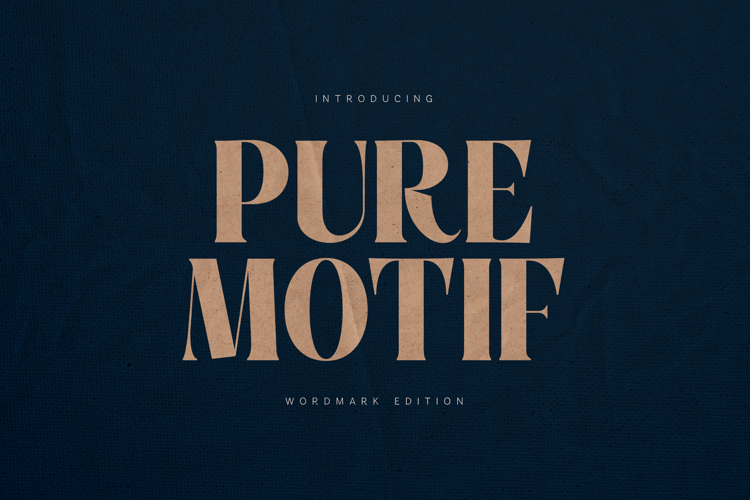
Pure Motif Wordmark Edition
Pure Motif is a refined serif typeface designed for powerful wordmarks, elevated branding, and timeless editorial compositions.
It blends classical proportions with contemporary sharpness — creating a voice that feels established, intentional, and unmistakably premium.
This is not decorative.
It is deliberate.
Design Character
Pure Motif carries:
• Strong vertical rhythm
• Confident serifs
• Sculpted terminals
• Elegant contrast
• Heritage undertones
• Luxury editorial presence
The uppercase is bold and commanding.
The lowercase adds refinement and balance.
Together, they create high-end branding potential.
Where It Excels
Luxury branding
Fashion houses
Perfume labels
Architecture studios
Creative agencies
High-end packaging
Editorial covers
Wine & spirits branding
Boutique hotels
Cultural institutions
This font is built for:
PURE MOTIF
LOOPSTATE
Strong. Stable. Memorable.
Visual Identity Vibe
Deep navy
Warm beige
Textured paper
Classic serif typography
Cinematic mood
Minimal layout
Large wordmarks
It feels like:
A modern Paris atelier
An Italian fragrance label
A Scandinavian design studio
A premium print magazine
• Wordmark-ready spacing
Perfectly balanced for logo work and display use.